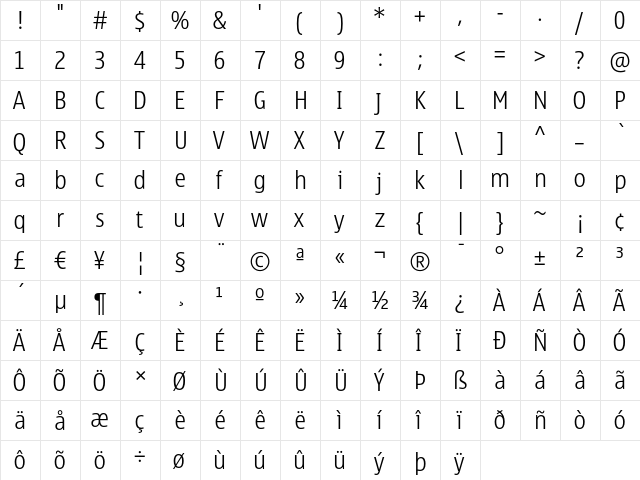
NokiaLarge Light
Design Context for NokiaLarge Typeface
NokiaLarge is a composed and adaptable typeface that performs quietly and consistently across a wide range of design contexts. The delicate stroke weight brings airiness and refinement to layouts.
Pro Tip: Pair NokiaLarge with a font of contrasting weight or personality to build a more expressive typographic hierarchy.